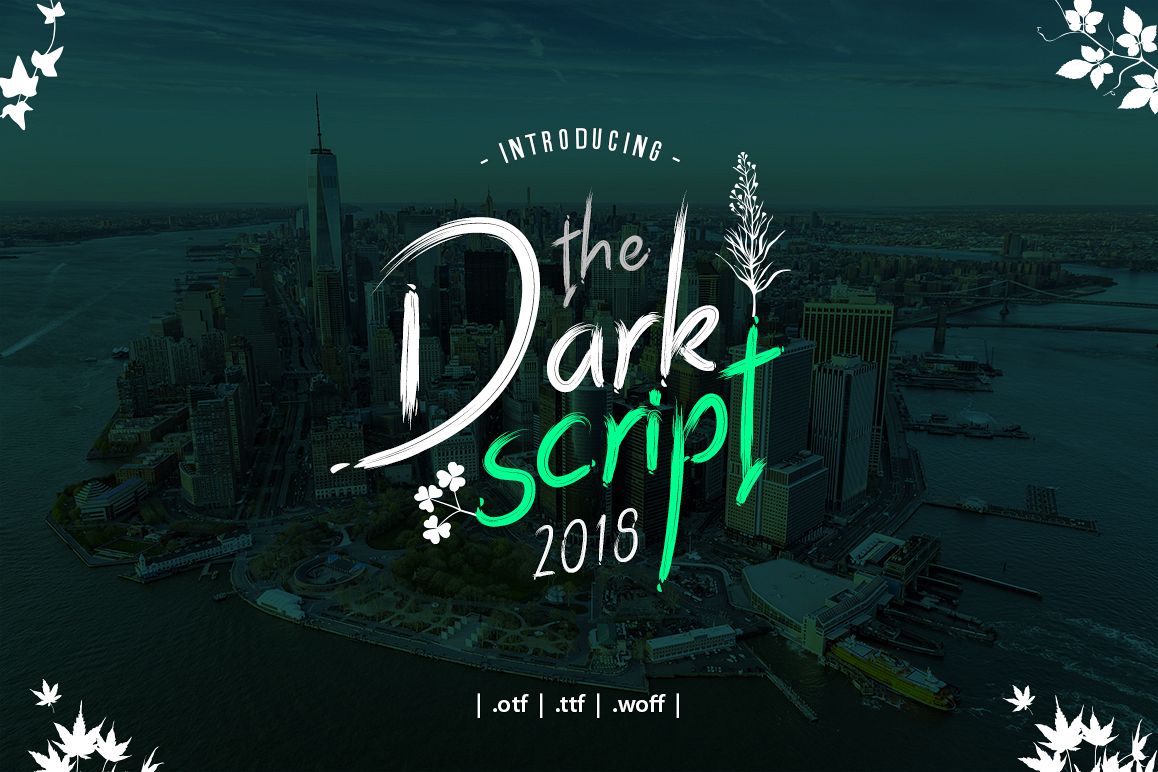
Dark Script Font
DarkScript
Dark Script is a stylish calligraphy font that features a varying baseline, smooth line, classic and interesting touch. Can be used for various purposes. such as headings, signature, logos, posters, t-shirt, signage, lable, wedding invitation, badges etc.